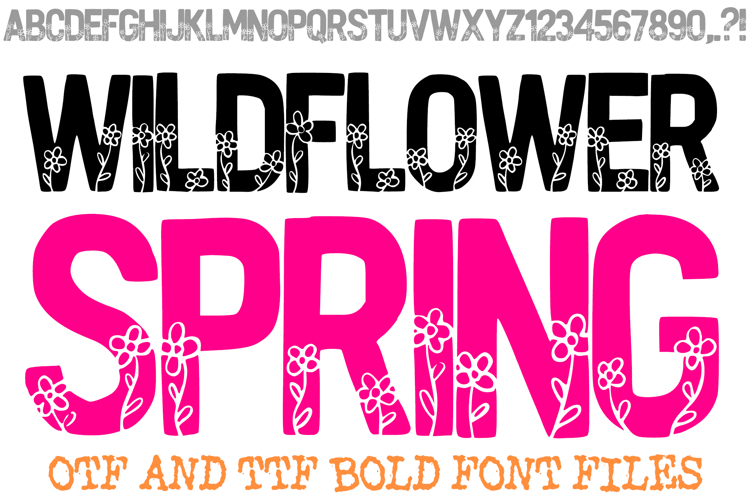
Wildflower Spring Bold Font Botanical Silhouette Typeface
Embrace the beauty of the outdoors with the Wildflower Spring Bold Font! This high-contrast display typeface is a stunning blend of strength and elegance, featuring heavy black block characters that serve as a canvas for delicate, hand-drawn white flowers. Each letter and number is uniquely designed with botanical illustrations that appear to "grow" from the base of the characters, creating a professional and artistic look.
Capturing the essence of a midnight garden, this font is perfect for designers looking to add a sophisticated, nature-inspired touch to their projects. The solid silhouettes ensure that your message remains bold and readable, while the internal floral details provide a soft, organic aesthetic.
Why Designers Love This Font:
High-Impact Contrast: The stark difference between the solid black fill and the fine white line-art flowers makes every word "pop".
Artisanal Botanical Detail: Each character features intricate, hand-drawn floral doodles for an instant custom feel.
Chunky & Readable: The thick, bold shapes are perfect for headlines and titles that need to command attention.